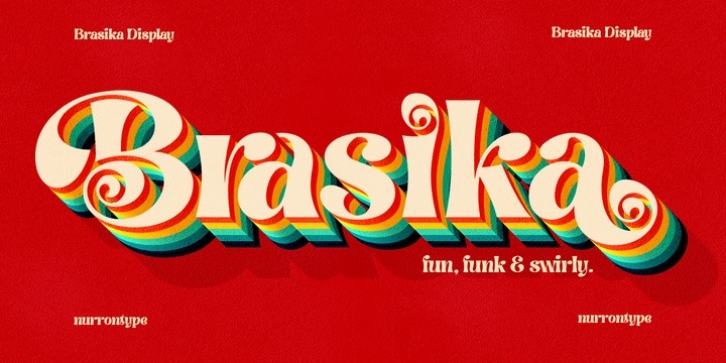
Brasika Display was designed by Nurron Shodiqin and published by Nurrontype. Brasika Display contains 1 style. The font is currently #46 in Hot New Fonts.
Hello my name is Brasika Display, a fun, funk and swirly font. I was designed with versatility, easy to adapt to your needs. I'm playful enough to make you happy. Just look my styistic and anatomy, it's cool, isn't it ? You can put me in your logo project. Or your magazine title. In your Christmas greetings card, wedding invitation, perhaps use me in your Instagram feeds, Youtube title, and many more, you name it. All my friends called me Polyglat, because I'm speaking and understand many languages. I'm Brasika, buy me now, and I will help you to ignite your next project.